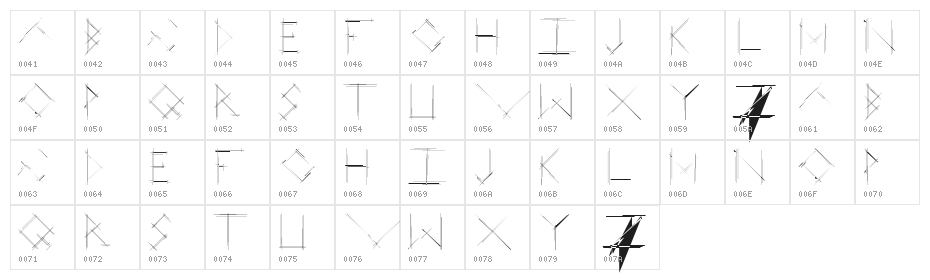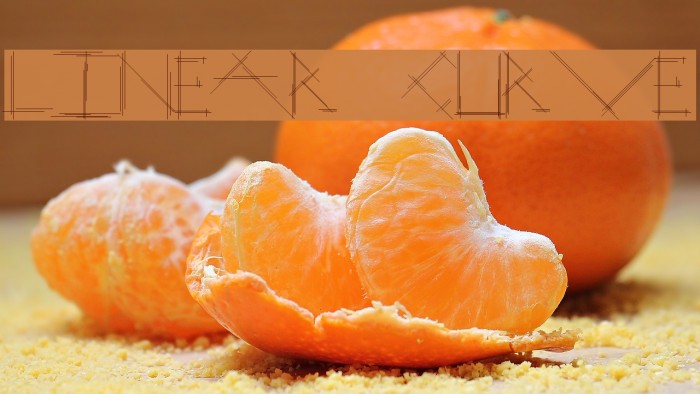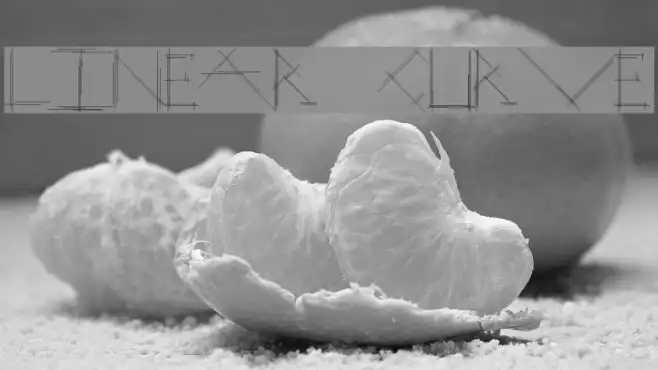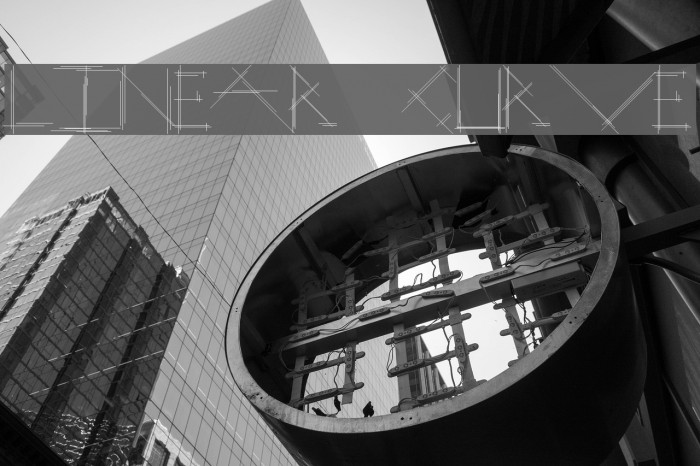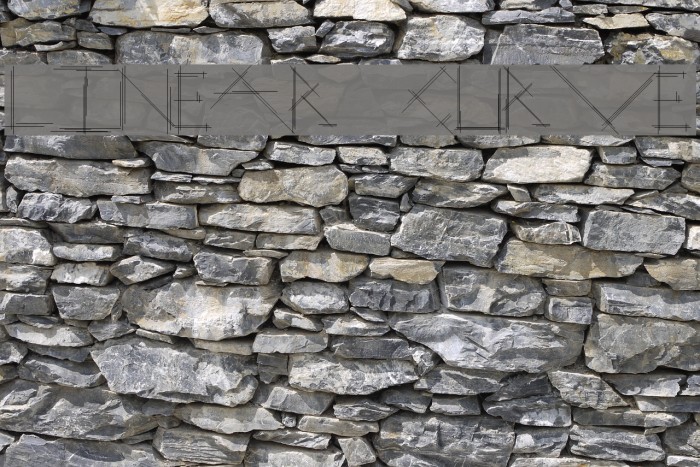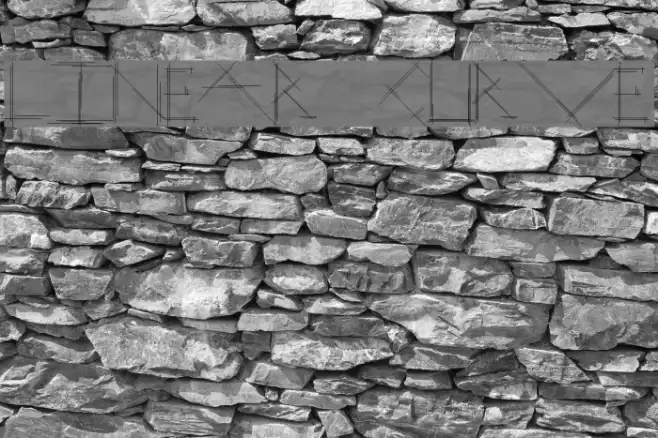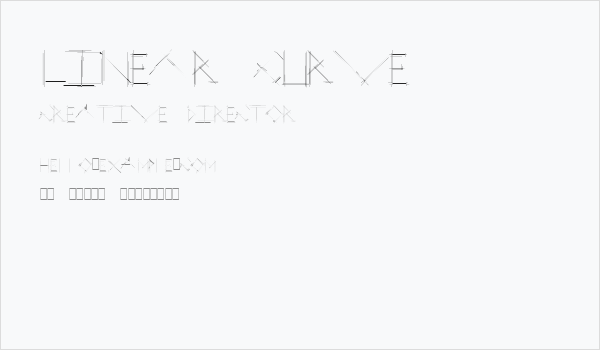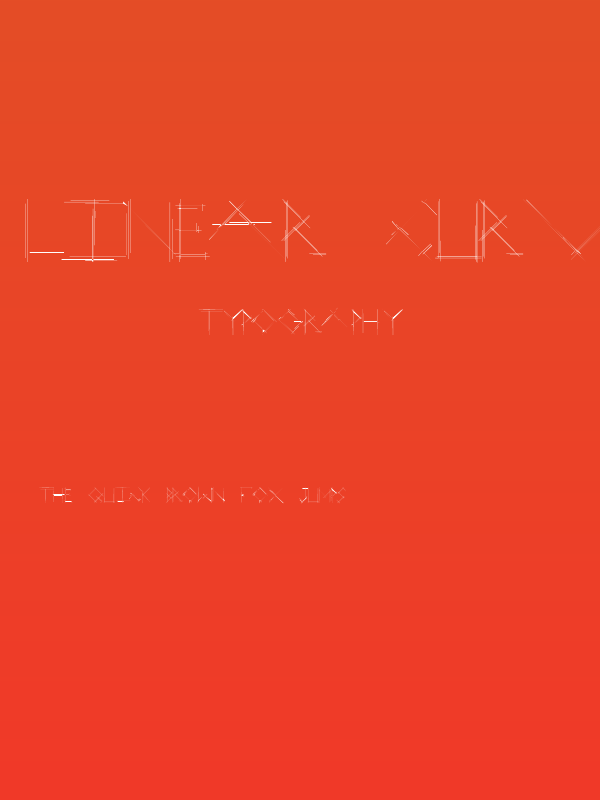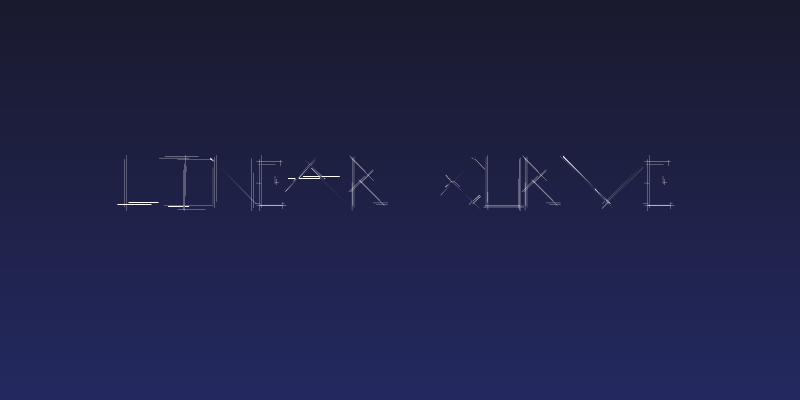
Linear Curve Font
Linear Curve Description
This font features a unique linear and geometric design, characterized by intersecting lines and sharp angles. The uppercase and lowercase letters are constructed with a series of straight lines, creating a modern and abstract appearance. The numerals are enclosed in rectangular boxes, adding a distinct and structured element to the overall design. The special characters maintain the linear theme, integrating seamlessly with the rest of the set. This font's minimalist and avant-garde style makes it suitable for contemporary and artistic projects.
| Use Case | Logos, Headlines, Artistic displays |
| Proposed Projects | Ideal for modern art projects, digital design, branding, and futuristic themes. |